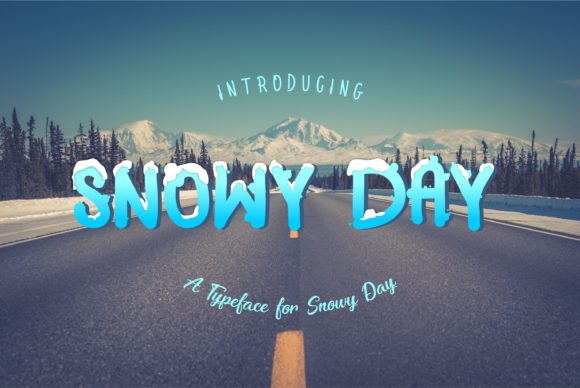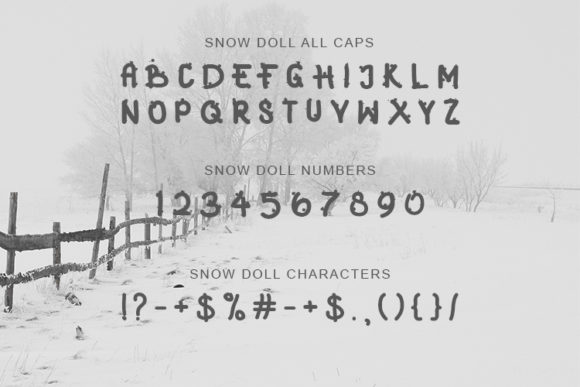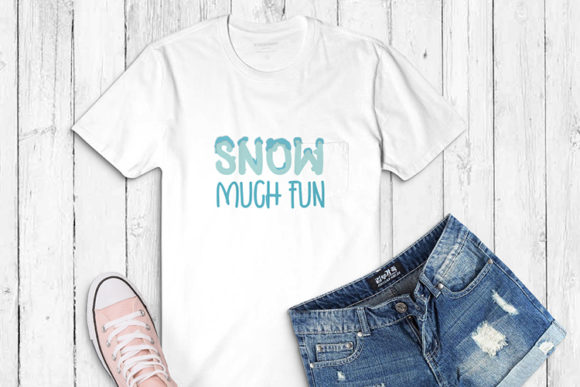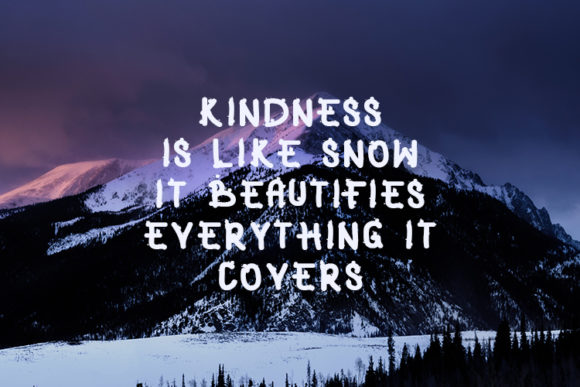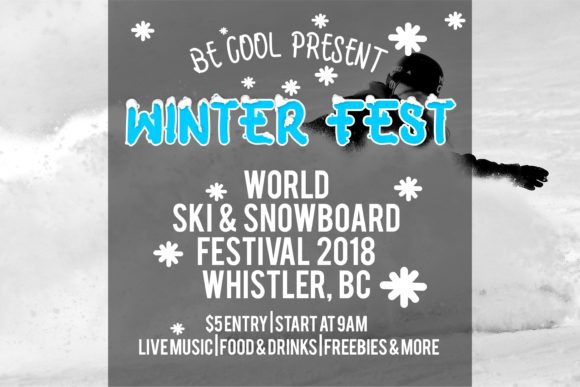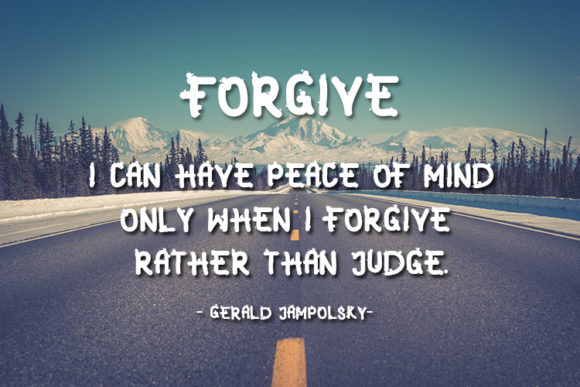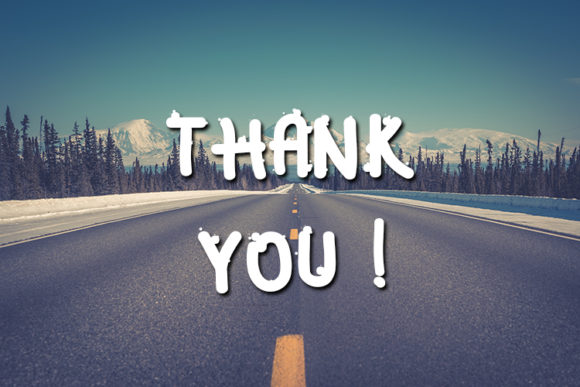
Snowy Day Font
About Snowy Day Font
The Snowy Day is a striking hand-drawn typeface. It has a fun and playful look, and is perfect for winter design themes.